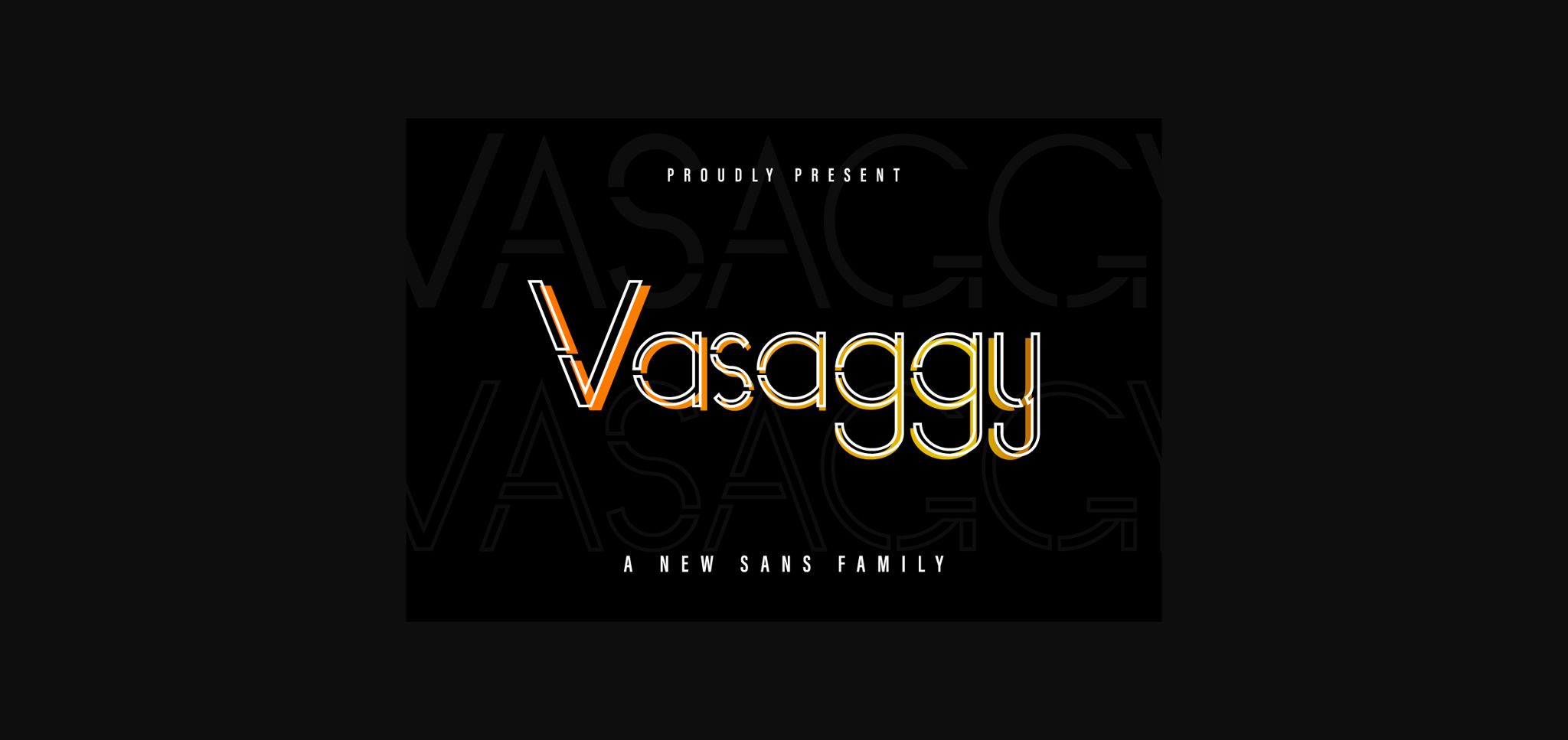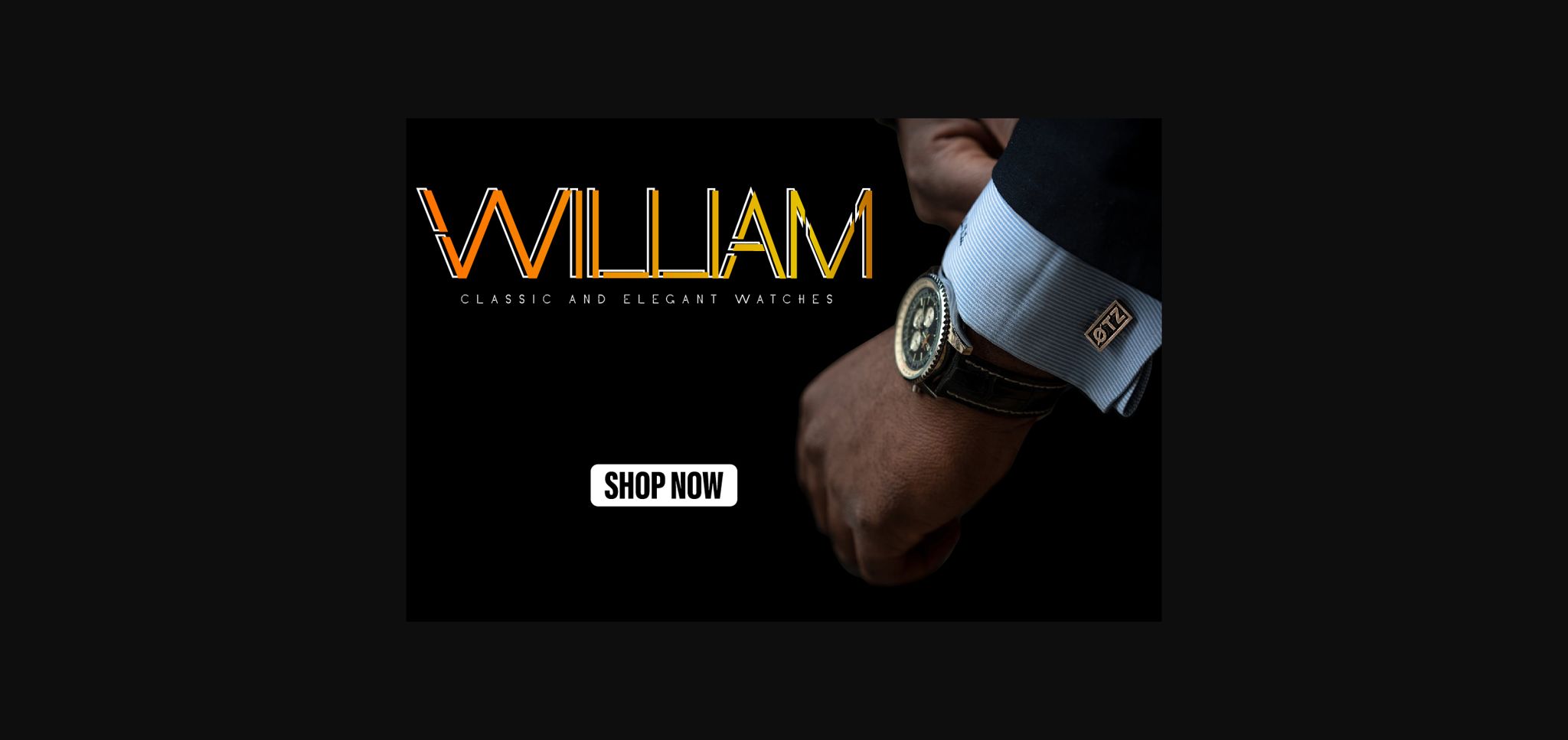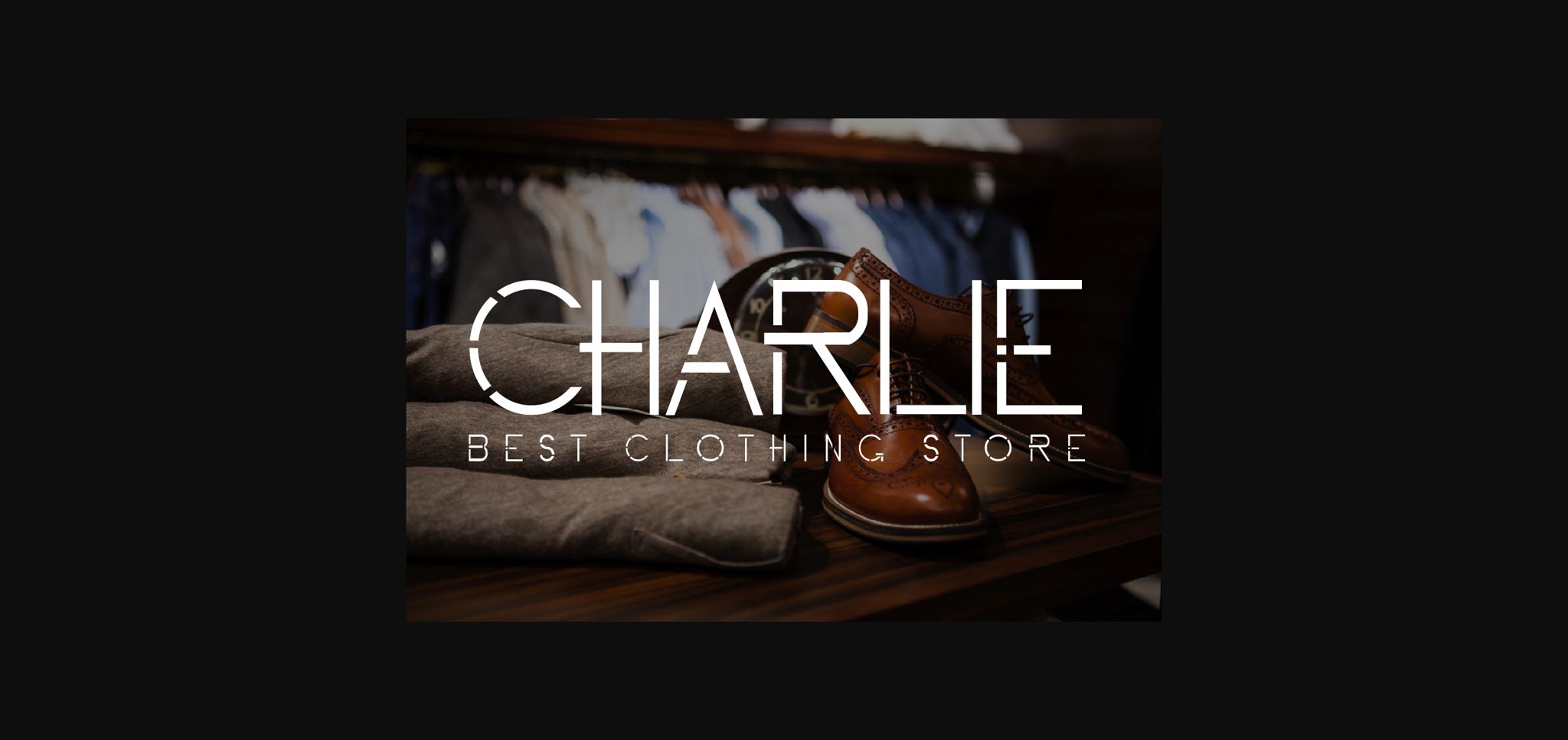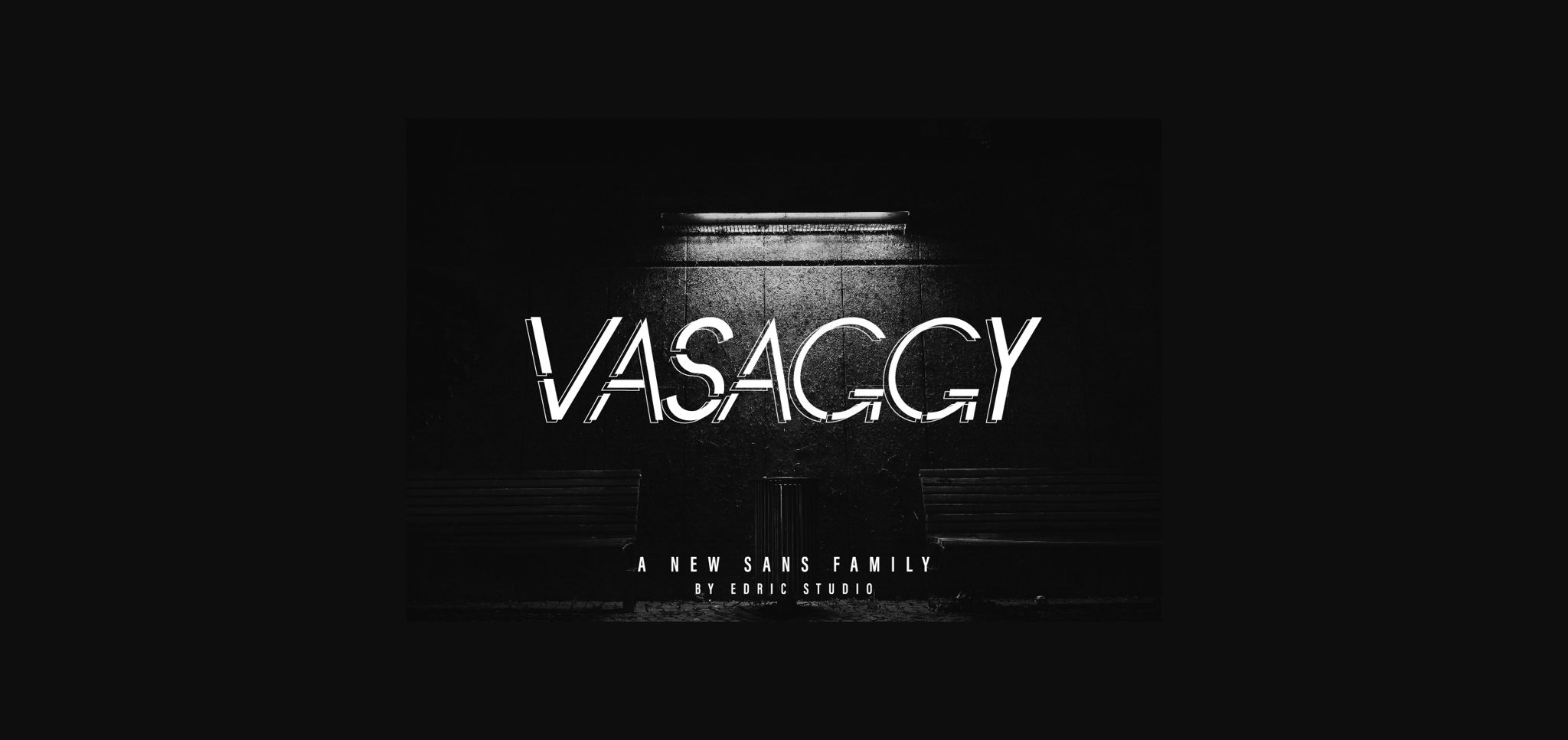
Vasaggy Font
About Vasaggy Font
Vasaggy is a unique and interesting sans serif font. It can easily be matched to an incredibly large set of projects, so add it to your creative ideas and notice how it makes them stand out!